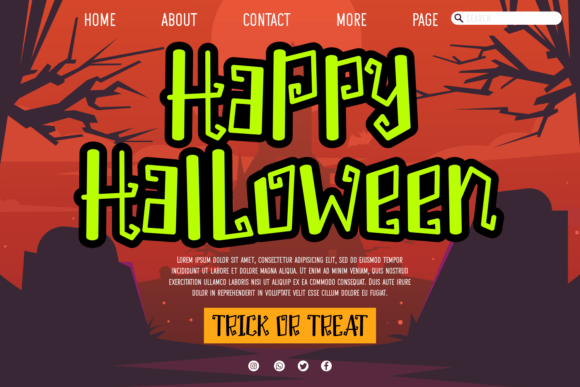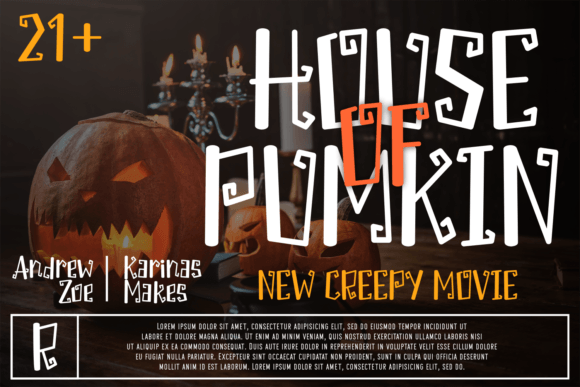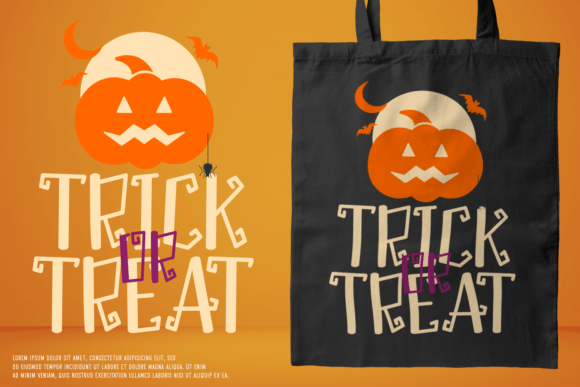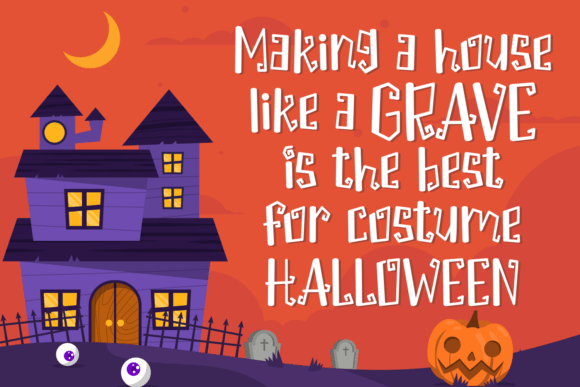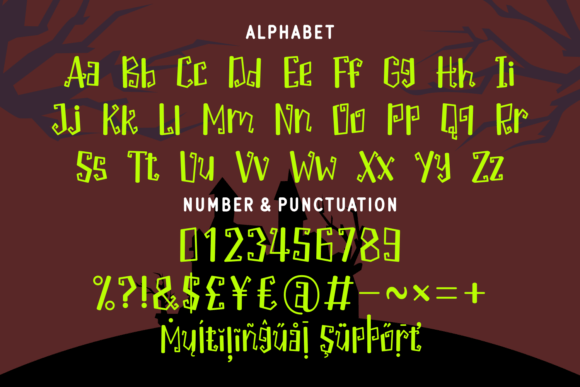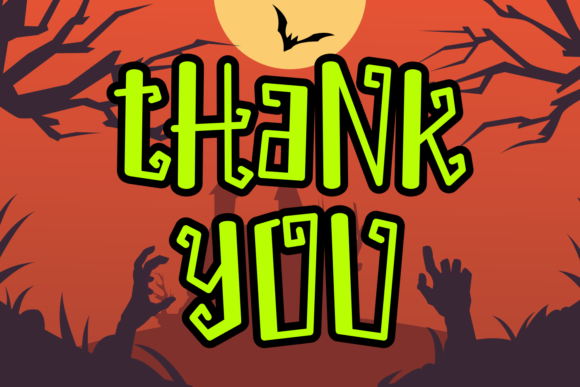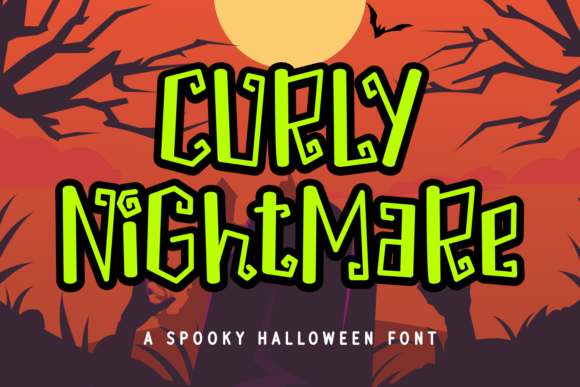
Introducing Curly Nightmare Font: The Ultimate Choice for Creative Projects
Are you tired of using the same old fonts for your creative projects? Look no further! Curly Nightmare Font is here to add a touch of fun and excitement to your designs. This exuberant handwritten font is perfect for a wide range of applications, from restaurant menus for kids to storybook covers, children’s magazines, Halloween party invitations, and more.
What Makes Curly Nightmare Font So Special?
Curly Nightmare Font is a unique and playful font that is sure to capture the attention of your audience. Its curly and whimsical design makes it perfect for projects that require a touch of personality and fun. The font is highly versatile and can be used for a variety of purposes, including:
- Restaurant menus for kids: Add a playful touch to your menu with Curly Nightmare Font and make mealtime a fun experience for kids.
- Storybook covers: Create eye-catching covers for your children’s storybooks with this delightful font.
- Children’s magazines: Use Curly Nightmare Font to add a touch of excitement and energy to your magazine’s title and headings.
- Halloween party invitations: Get into the spooky spirit with Curly Nightmare Font and create invitations that are sure to thrill kids and adults alike.
Key Features of Curly Nightmare Font
Here are some of the key features that make Curly Nightmare Font a must-have for designers and crafters:
- Handwritten design: Curly Nightmare Font has a unique handwritten design that gives it a personal and playful touch.
- Exuberant style: The font’s exuberant style makes it perfect for projects that require a high level of energy and enthusiasm.
- Fun and playful: Curly Nightmare Font is designed to be fun and playful, making it perfect for projects that require a lighthearted touch.
- Highly versatile: The font can be used for a wide range of applications, from digital projects to print materials.
Tips for Using Curly Nightmare Font
Here are some tips for using Curly Nightmare Font to get the most out of this amazing font:
- Use it as a title font: Curly Nightmare Font is perfect for use as a title font, adding a touch of personality and fun to your project’s title.
- Pair it with other fonts: Experiment with pairing Curly Nightmare Font with other fonts to create a unique and eye-catching design.
- Use it in digital projects: Curly Nightmare Font can be used for a wide range of digital projects, from social media graphics to website headers.
- Experiment with colors: Try out different colors with Curly Nightmare Font to add an extra touch of personality to your design.
Why Designers and Crafters Love Curly Nightmare Font
Designers and crafters love Curly Nightmare Font for its unique and playful design. Here are some reasons why:
- Easy to read: Despite its curly design, Curly Nightmare Font is easy to read, making it perfect for use in a wide range of applications.
- High-quality design: The font has a high-quality design that looks great in both digital and print formats.
- Time-saving: With Curly Nightmare Font, designers and crafters can save time and effort by using a pre-designed font that is ready to use.
- Inspires creativity: The font’s playful design inspires creativity and can help designers and crafters come up with new and innovative ideas.
In conclusion, Curly Nightmare Font is a fun and exuberant handwritten font that is perfect for a wide range of creative projects. Its curly and whimsical design makes it perfect for adding a touch of personality and fun to your designs. With its highly versatile design and key features, Curly Nightmare Font is a must-have for designers and crafters looking to add a touch of excitement and energy to their projects.